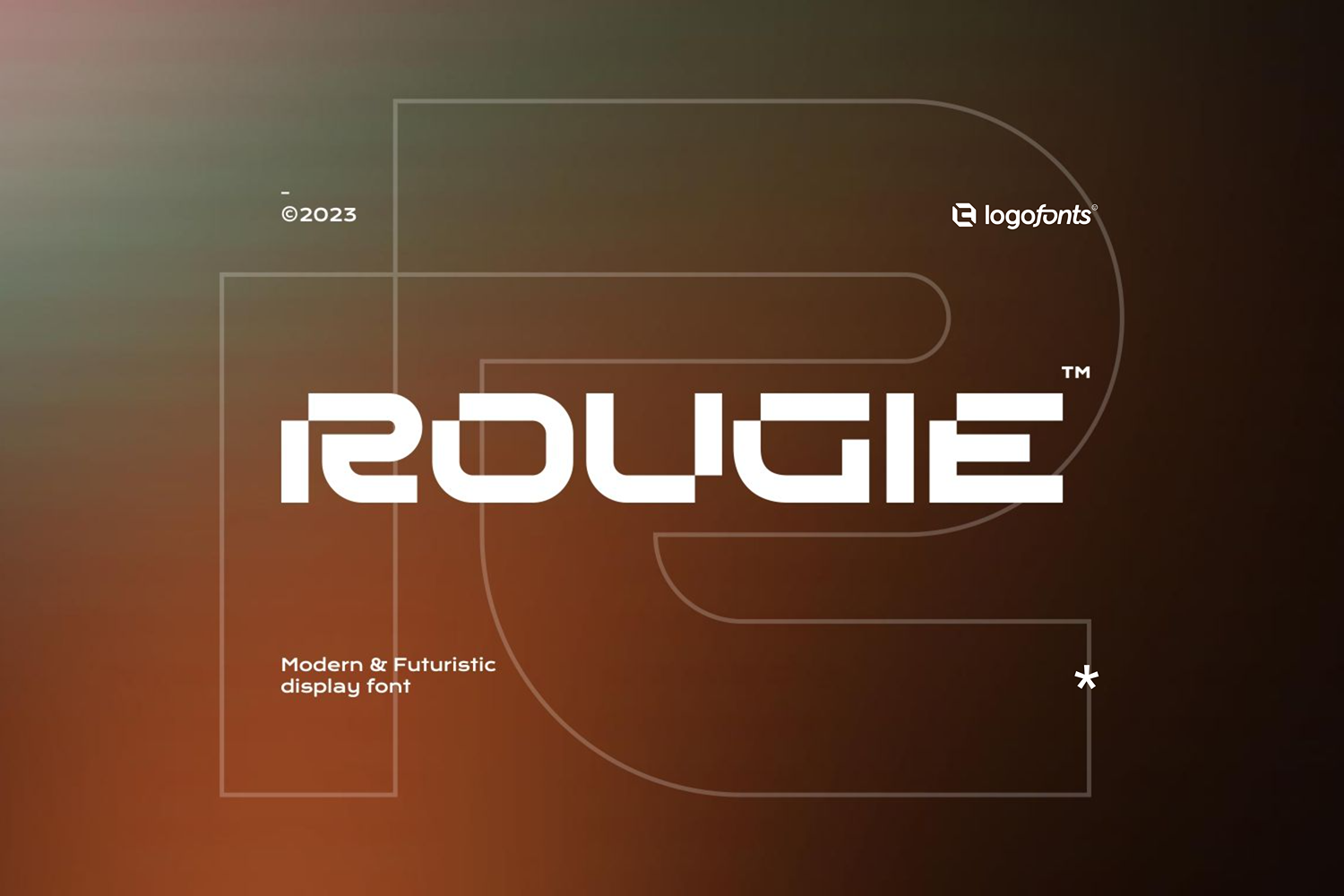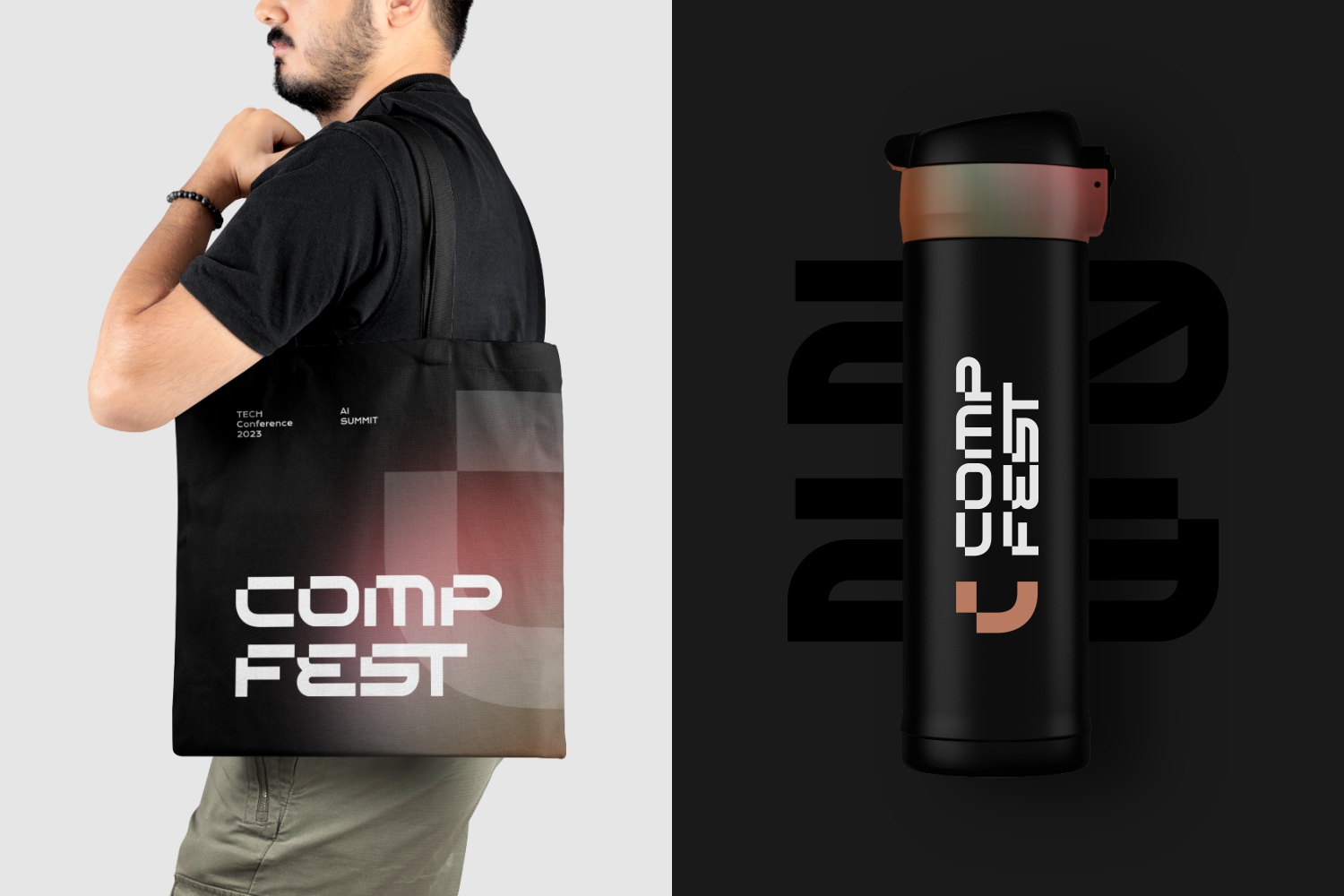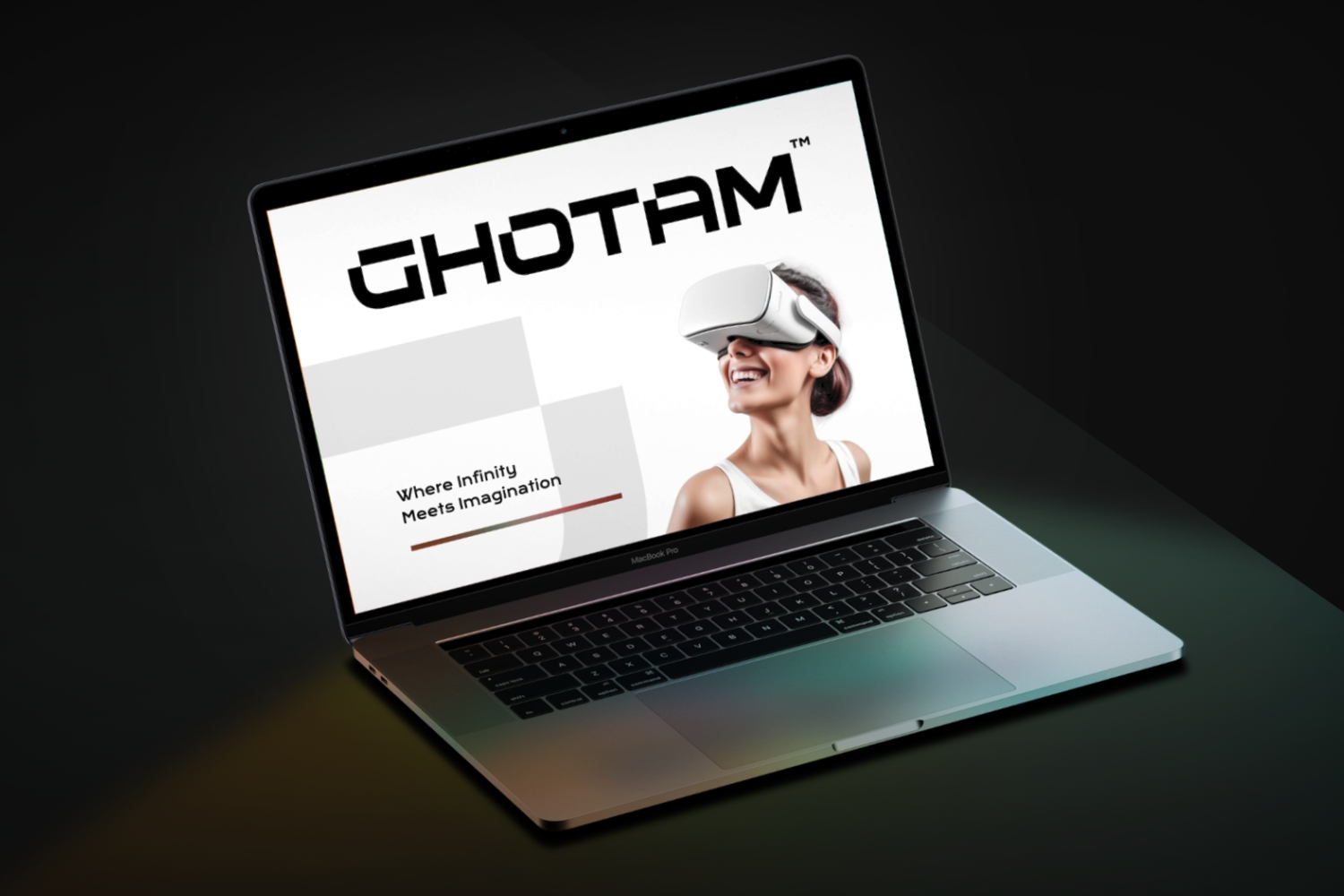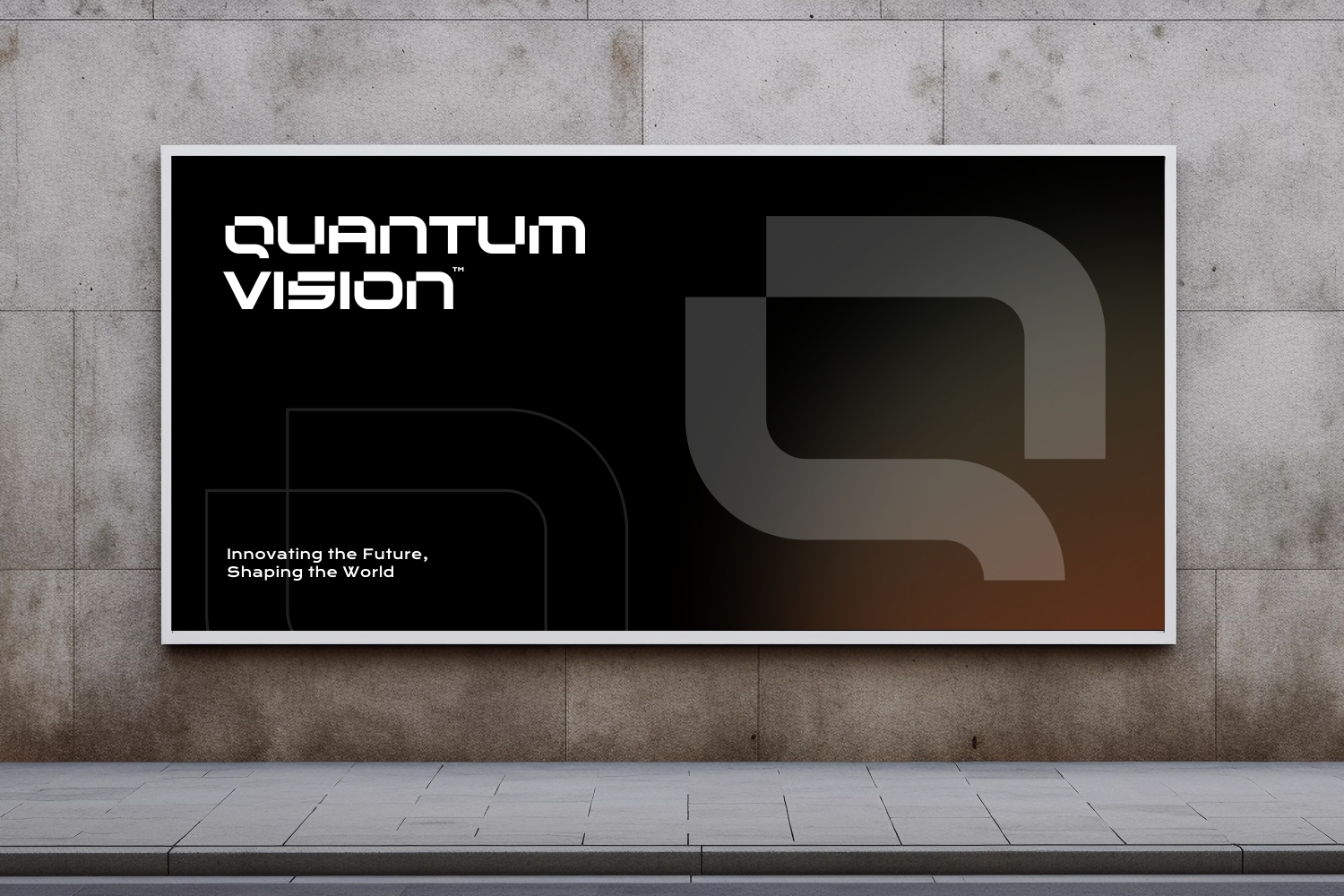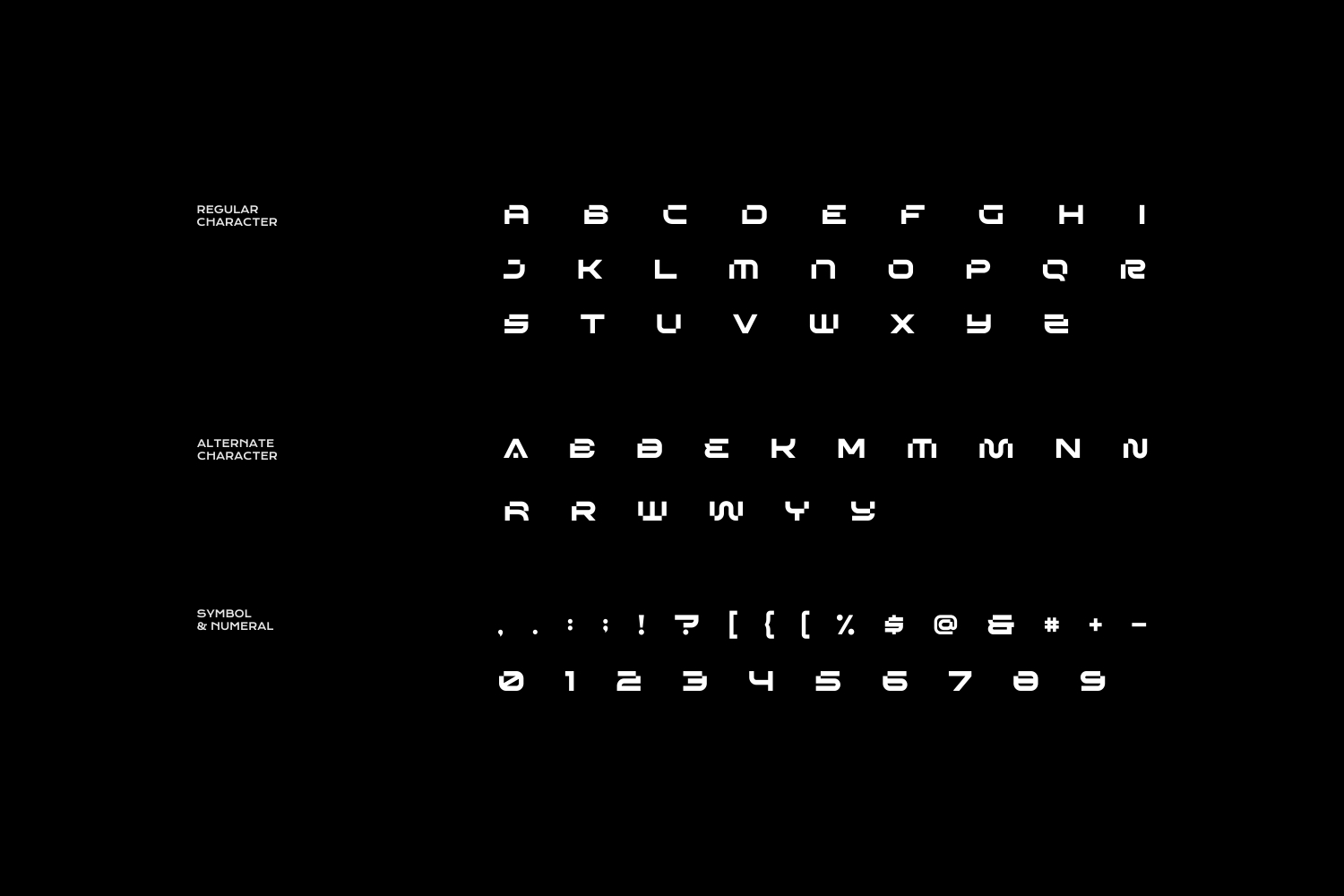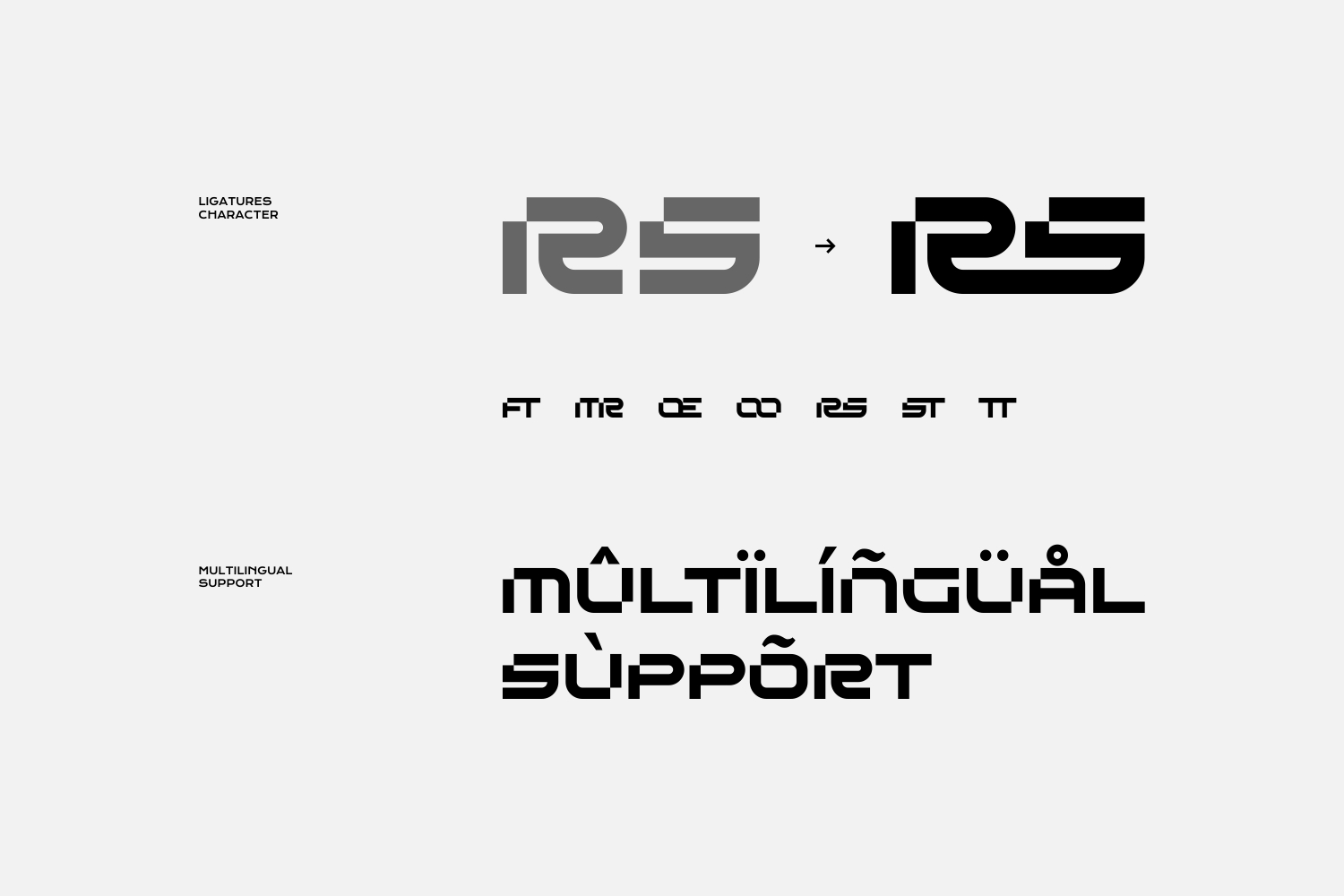
Rougie is a futuristic and modular display font with a highly experimental personality. Designed with distinct geometric shapes and compact proportions, Rougie features bold curves, squared terminals, and extensive ligatures that give it a standout, cyber-inspired aesthetic. Its characters feel engineered, making it an excellent fit for tech products, AI conferences, digital events, and innovative branding.
The font supports alternate characters and multilingual accents, allowing for flexible usage across various design needs. Whether on tech merchandise, digital campaigns, or modern interface design, Rougie delivers a bold, forward-looking typographic identity. Its unique structure and futuristic edge ensure that every composition looks contemporary and visionary.
Rougie